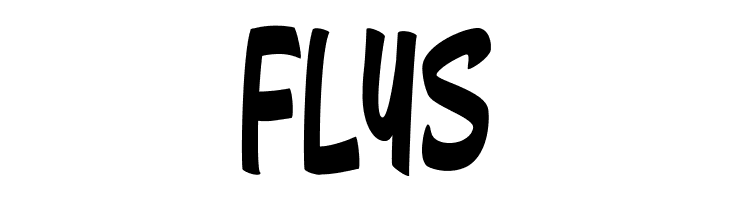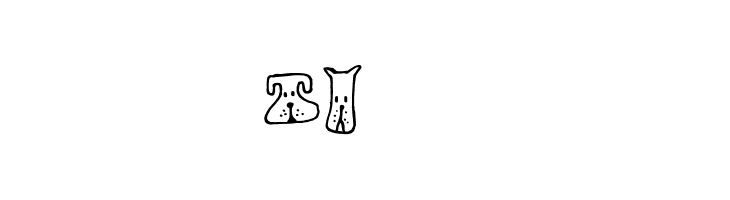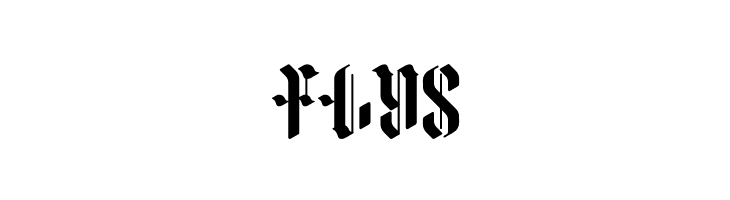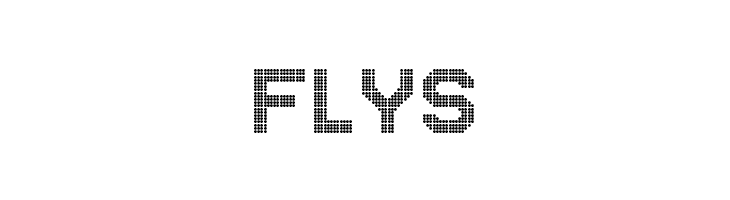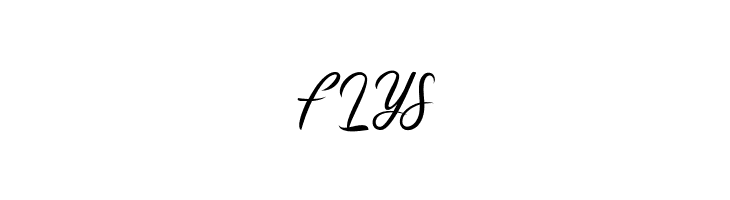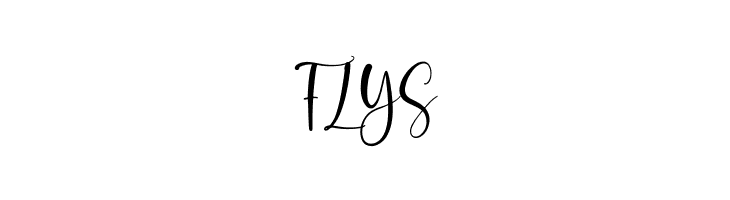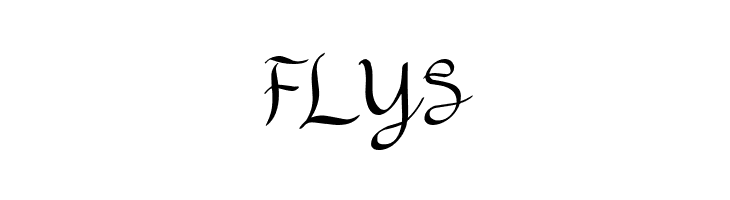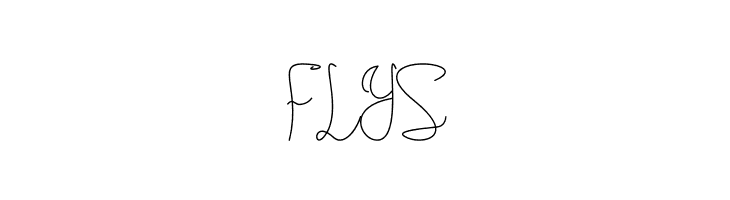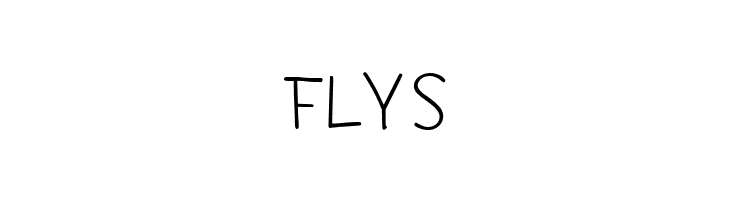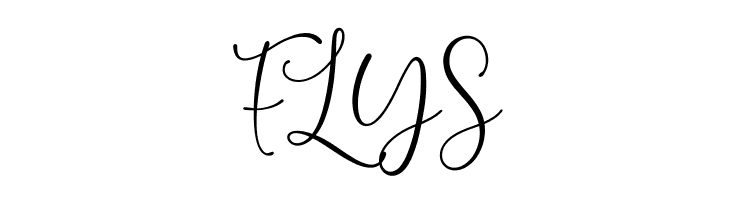
A bold, 3D decorative font with a classic casino style.
A bold, italic font with a dynamic and energetic style.
A bold, geometric font with a modern and striking design.
Bold, italicized font with a flat shadow effect for dynamic designs.
Bold, shadowed font with a classic casino style.
A bold, decorative italic font with a dotted pattern, ideal for playful and eye-catching designs.
A bold, decorative font with dotted embellishments, perfect for vintage-themed designs.
A bold, decorative font with an italic slant and dotted shadow effect.
A bold, decorative font with a shadow effect and dotted outlines, ideal for vintage-themed designs.
A playful, hand-drawn font with tall, narrow characters and a whimsical feel.
A bold, cursive script font with elegant, flowing letters.
A bold blackletter font with intricate, angular letterforms and a gothic flair.
A playful, hand-drawn font with bold, rounded characters.
A playful, casual font combining bold uppercase and script-like lowercase letters.
A playful, handwritten font with a casual and informal style.
A dot matrix style font with a digital, retro aesthetic.
An elegant script font with flowing, cursive letterforms and high contrast strokes.
A playful and elegant script font with flowing, cursive letters.
A bold, hollow, and playful font with angular, dynamic characters.
A bold, hollow font with playful, angular characters and a dynamic style.
A bold, playful font with irregular, cartoonish shapes and thick strokes.
A cursive, handwritten-style font with elegant, flowing strokes.
A whimsical font with letters designed as cat and dog faces, perfect for playful projects.
A whimsical font with letters as cat and dog faces, perfect for playful designs.
An elegant, flowing script font with thin, delicate lines and graceful curves.
A modern, elegant script font with flowing, cursive letterforms.
A graceful and artistic script font with flowing, cursive characters.
A modern, elegant script font with flowing cursive letters and dynamic strokes.
A playful handwritten font with rounded, consistent strokes and a casual feel.
A flowing, cursive script font with intricate loops and swashes, perfect for elegant designs.
A graceful script font with flowing, interconnected letters and elegant curves.
A Celtic-inspired font with bold, artistic characters and unique styling.